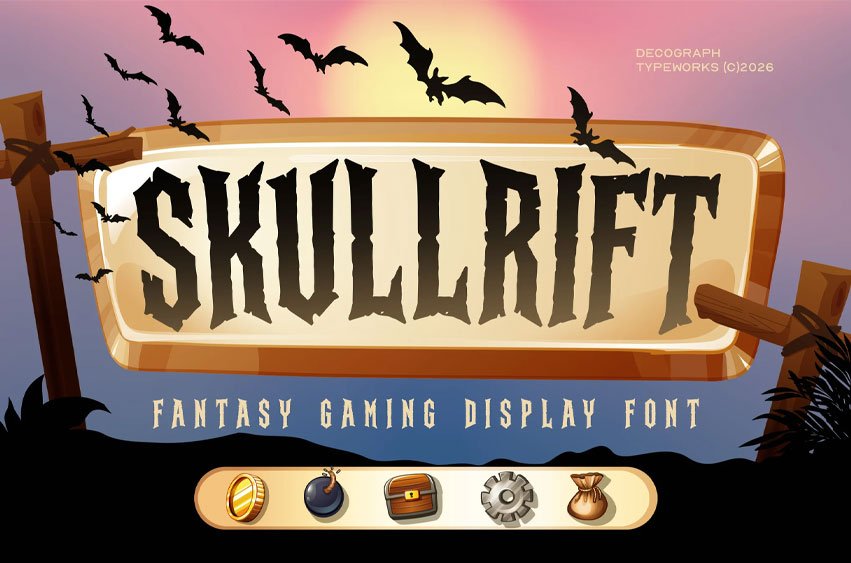
Skullrift Font is a dark fantasy display font crafted with sharp gothic-inspired forms, rugged carved edges, and dramatic vertical proportions that evoke the atmosphere of cursed kingdoms, haunted dungeons, and legendary RPG worlds.
Its bold silhouette and aggressive fantasy styling make every word feel powerful, mysterious, and immersive.
Font Features:
- Uppercase Character Set
- Numerals And Punctuation
- PUA Encoded Characters